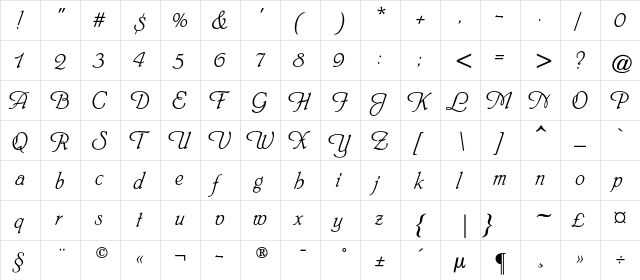
HeinrichScriptC Regular
Design Context for HeinrichScriptC Typeface
HeinrichScriptC brings a calligraphic fluidity to the page — its connecting strokes and expressive curves give it an unmistakably human quality.
Font Pairing: Combine HeinrichScriptC with a simple geometric sans for maximum contrast — the tension between flowing curves and clean structure is a classic typographic pairing.
Pro Tip: Use HeinrichScriptC for short runs of text — names, titles, or taglines. Extended body copy in script faces tires the eye quickly.